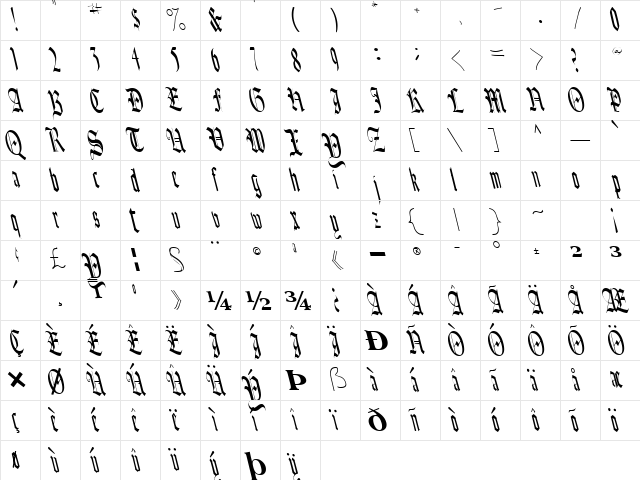
Bounce Regular
Design Context for Bounce Typeface
Bounce is a composed and adaptable typeface that performs quietly and consistently across a wide range of design contexts.